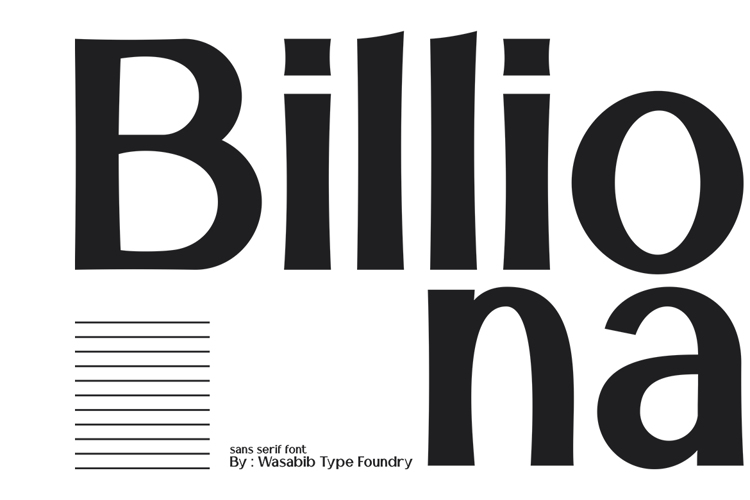
Billiona Font
About Billiona Font
BILLIONA - Its clean lines and subtle serif-inspired details create a harmonious blend that stands out in both digital and print media. Experience the essence of modernity and timeless elegance with Billiona.